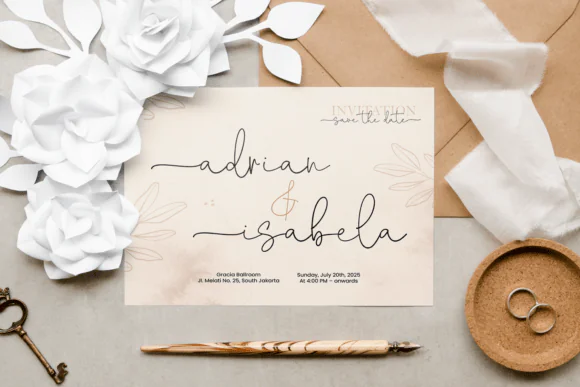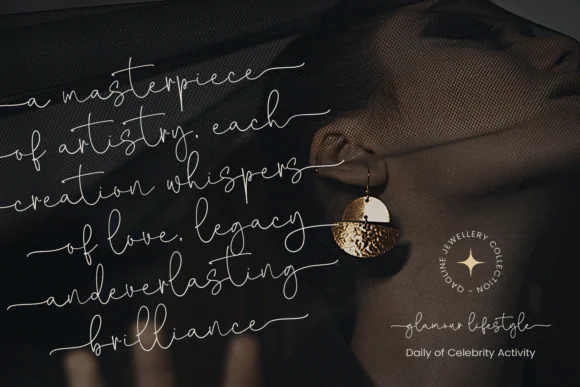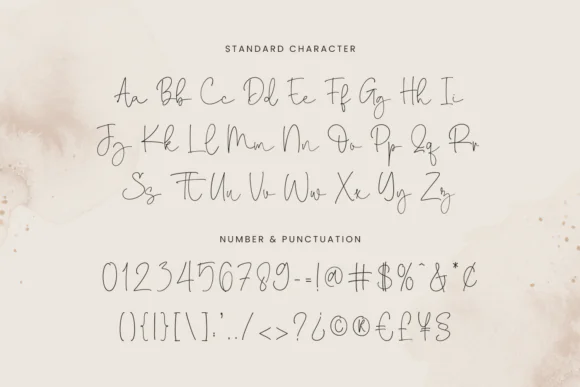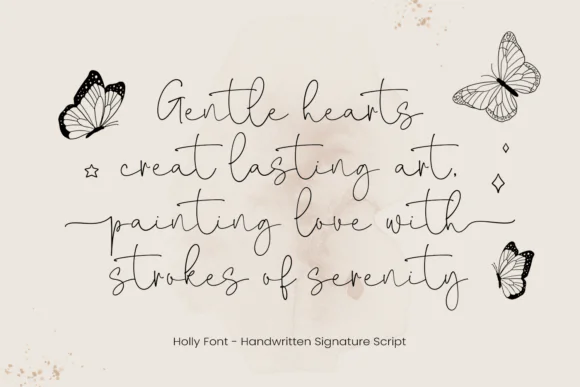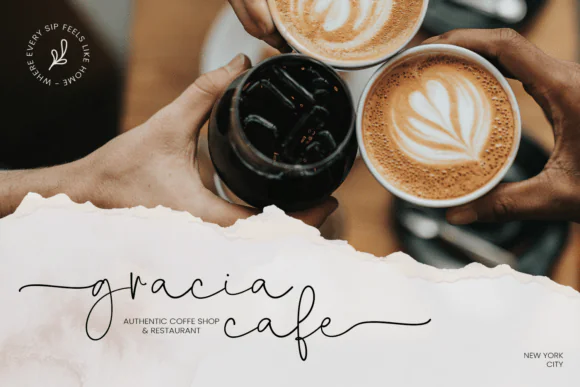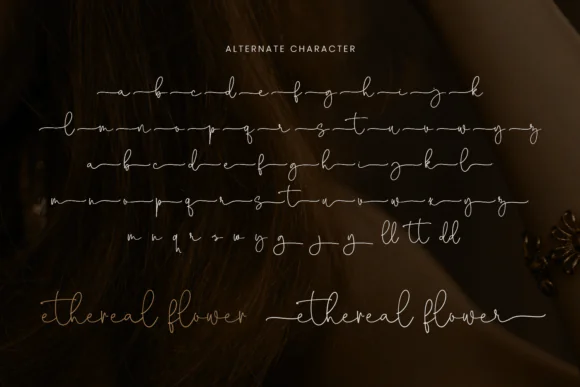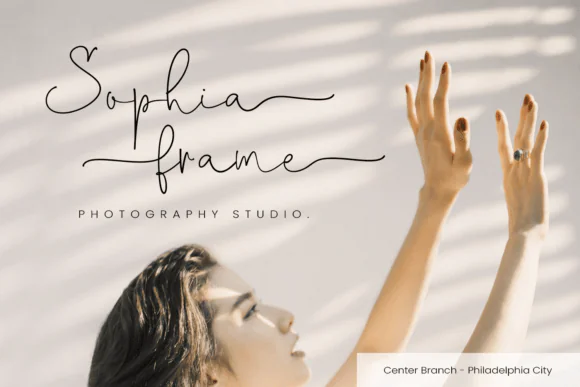
Create graceful, festive, and beautifully polished designs with Holly Font, a stunning handwritten script font with an elegant signature style and flowing curves. This font brings warmth, sparkle, and classy charm to your creative projects, making it perfect for Christmas designs, Thanksgiving themes, wedding invitations, birthday cards, seasonal crafts, and stylish digital artwork.
Holly Font includes beautiful beginning and ending swash tails that give your text a smooth, decorative, and professional finish. Its natural handwriting flow makes it ideal for Cricut projects, SVG designs, embroidery work, lettering art, handmade crafts, invitations, branding, greeting cards, stickers, mugs, t-shirts, tote bags, printable wall art, and seasonal product designs.
This font also includes alternate characters and swashes, allowing you to create unique letter combinations and more personalized typography. Whether you are designing festive holiday products, elegant wedding stationery, handmade gifts, or small business branding, Holly Font adds a joyful and refined handwritten touch.
Holly Font is a beautiful choice for designers, crafters, small business owners, and digital product sellers who want to create elegant, festive, and memorable designs with a flowing handwritten script style.